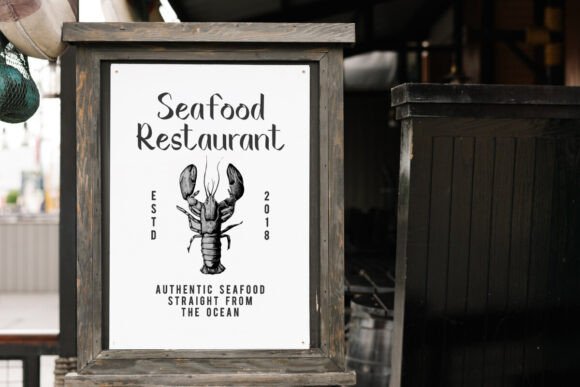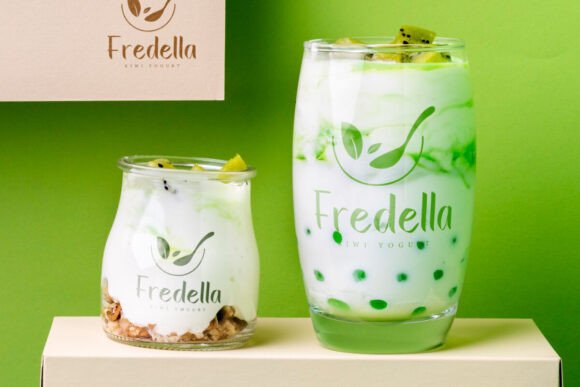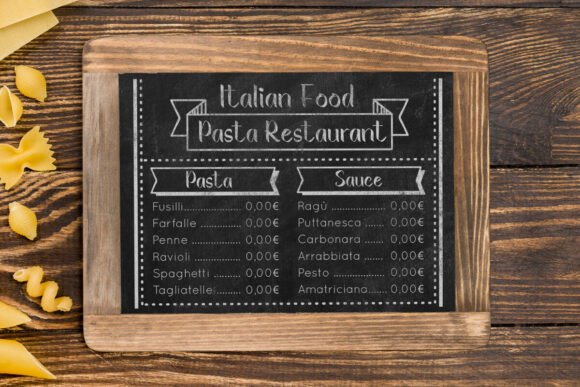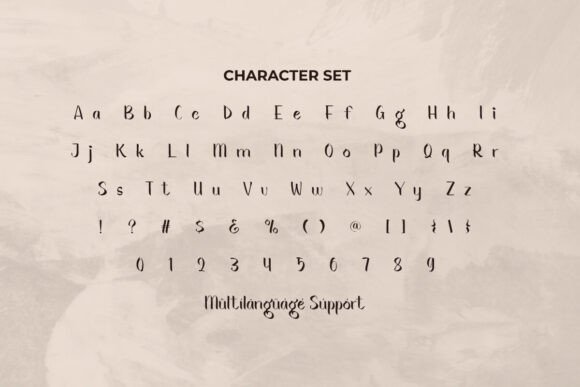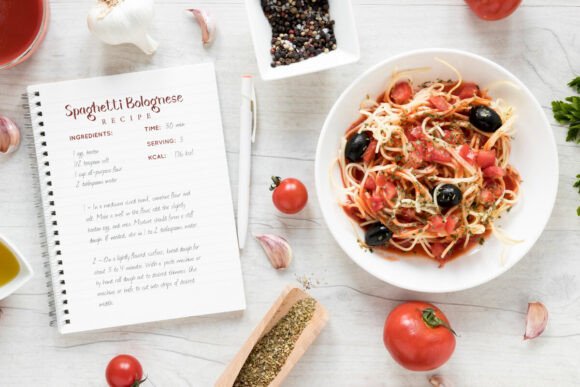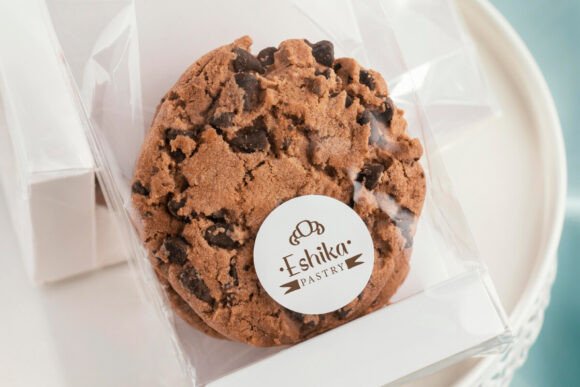
Introduction to Sauce Bolognese Font
Sauce Bolognese Font is a modern stylish display font with beautiful brush strokes around each character.
Typography elevates the concept of pasta so that the appearance of the writing tends to be slightly flattened on one side and thickens to thin perfectly like the type of pasta It would be tempting to accompany you in whatever your project, such as apps, billboards, brand logos, brochures, flyers, labels, menus, product packaging, stationery, signage, stickers, titles, websites, and many more.